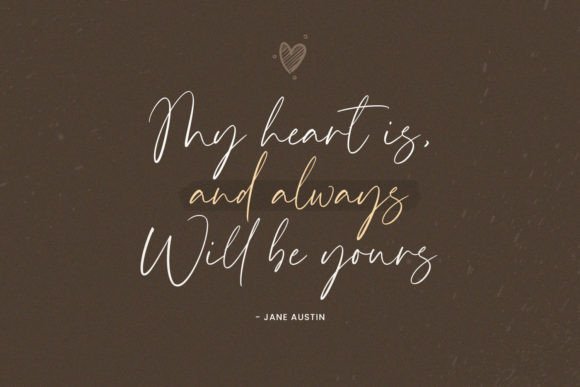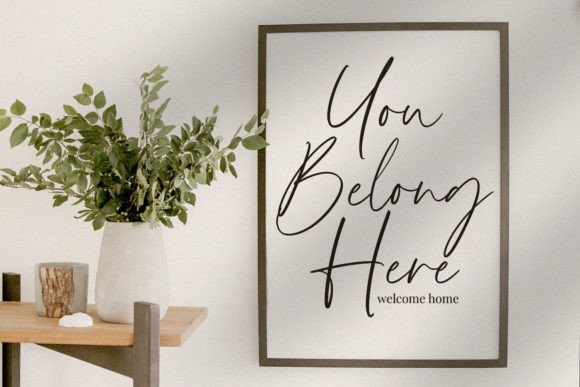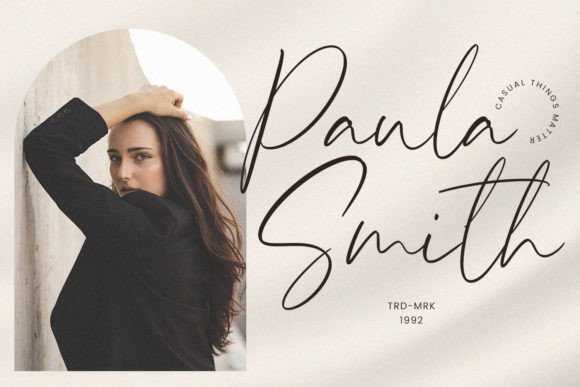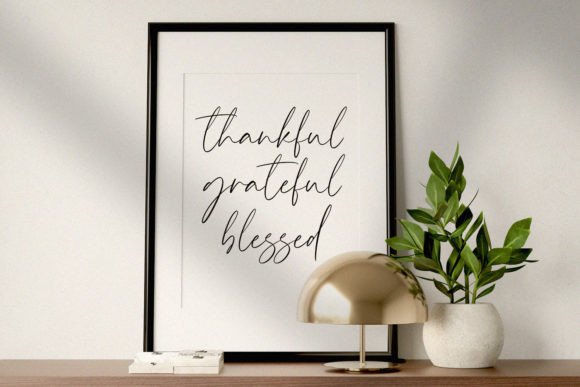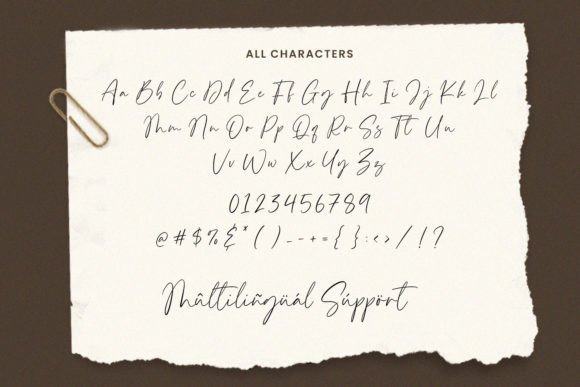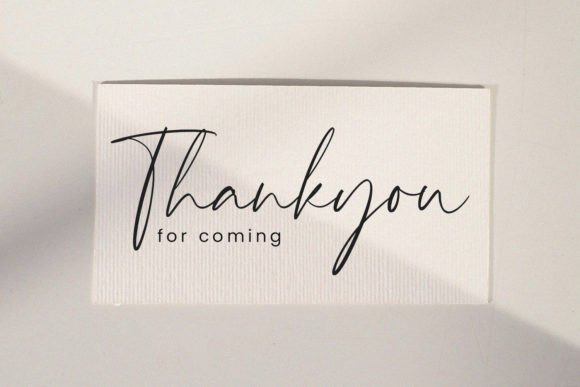
Timberlyn Font
Timberlyn Font Download – Elegant Flowing Handwritten Script
The Timberlyn Font download is a delicate handwritten typeface that brings elegance and charm to your work. With its flowing strokes and balanced style, it is perfect for a wide range of creative projects. Whether for invitations, logos, or posters, Timberlyn adds a refined touch that makes your designs more memorable.
Flowing Style of Timberlyn Font Download
The Timberlyn Font download features smooth lines and a natural rhythm. Because of this, it looks close to real handwriting. In addition, its soft design makes text both stylish and easy to read.
Timberlyn Font Download for Invitations and Cards
Wedding invitations, greeting cards, and thank-you notes shine with the TimberlynFont download. Not only does it bring elegance, but it also creates a warm, personal tone. Therefore, it is an excellent choice for meaningful projects.
Timberlyn Font Download for Logos and Branding
The TimberlynFont download is also great for logos, product labels, and packaging. As a result, your brand appears polished and creative. Moreover, its balanced strokes keep names clear and easy to recognize.
Timberlyn Font Download in Posters and Creative Designs
You can also use the TimberlynFont download in posters, banners, and digital layouts. In addition, its flowing script works well across both print and web projects, making your work versatile and attractive.
Readability of TimberlynFont Download
Some handwritten fonts are hard to read. However, the TimberlynFont download balances elegance with clarity. As a result, your text stays stylish while remaining simple to understand.
Why Choose TimberlynFont Download for Your Projects?
The TimberlynFont download stands out because it is elegant, flexible, and easy to use. In other words, it works well for personal designs as well as professional branding. Finally, it is a font that helps your ideas look their best.